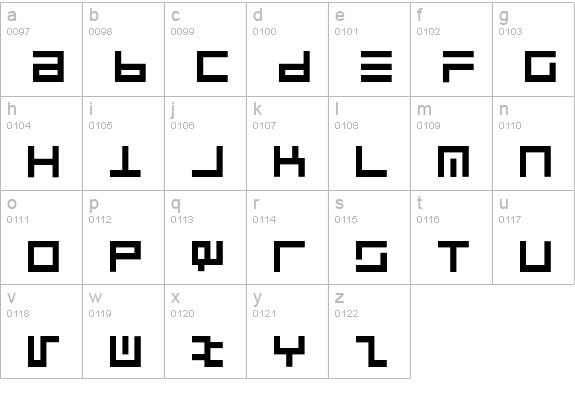
UltraLine Font Details
UltraLine is a stunning font that effortlessly combines elegance with modernity. Its sleek and stylish design is perfect for any project that requires a touch of sophistication. With its clean lines and bold presence, UltraLine is sure to make a lasting impression. This font is not only visually appealing, but it is also incredibly versatile. Whether you are designing a logo, creating a website, or working on a branding project, UltraLine will elevate your work to new heights. Its sharp and distinctive letterforms add a sense of sleekness and professionalism to any design. One of the best features of UltraLine is that it is free to download. Yes, you read that right - this incredible font is freely available at FontsMarket.com. This means that you can add this stunning typeface to your collection without breaking the bank. Now you can create beautiful designs without having to worry about the cost of premium fonts. UltraLine is not just a font - it is a statement. It captures attention and demands to be noticed. Its bold and confident presence sets it apart from other typefaces, making it a go-to choice for designers who want to make a strong visual impact. So why wait? Download UltraLine today from FontsMarket.com and take your designs to the next level. Whether you are a professional designer or a creative enthusiast, this font is sure to become a valuable asset in your toolkit. Don't miss out on the opportunity to elevate your designs with this stunning and freely available font.